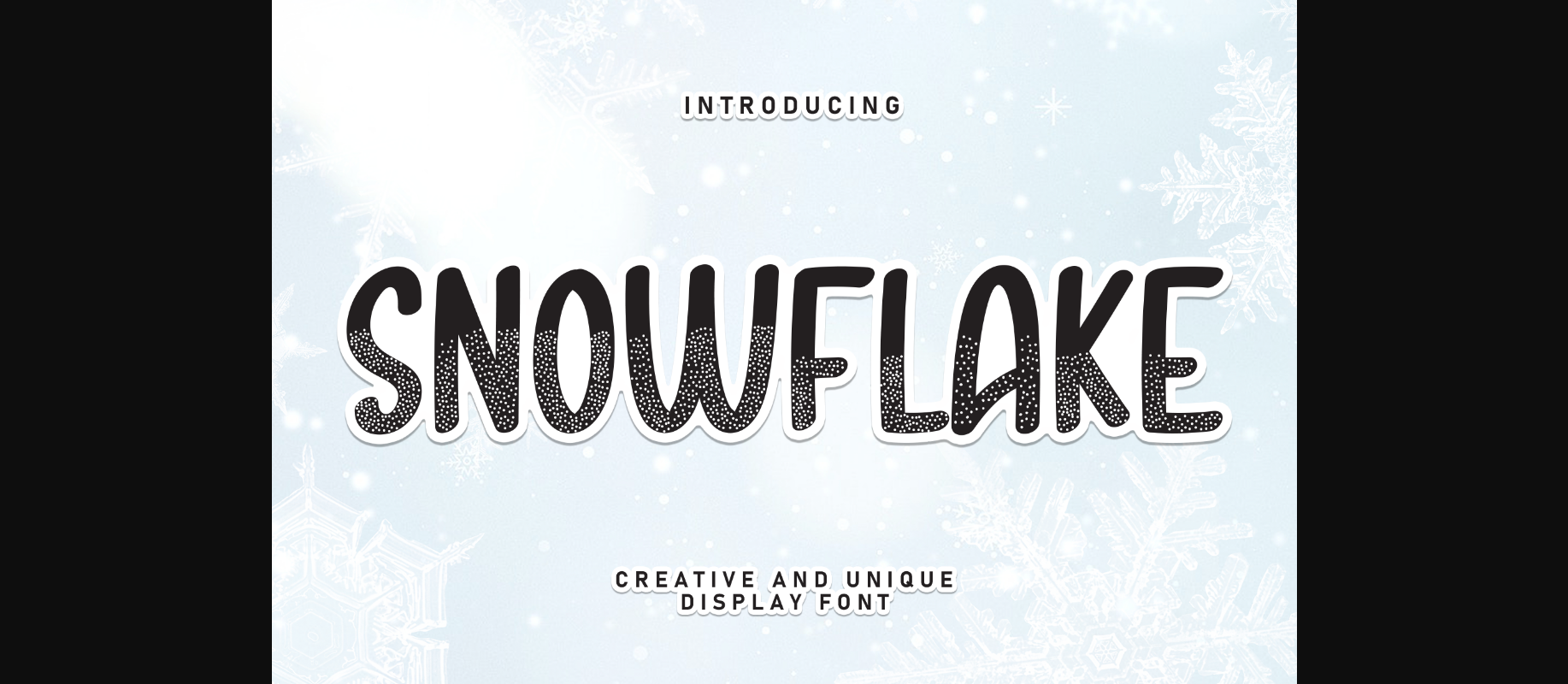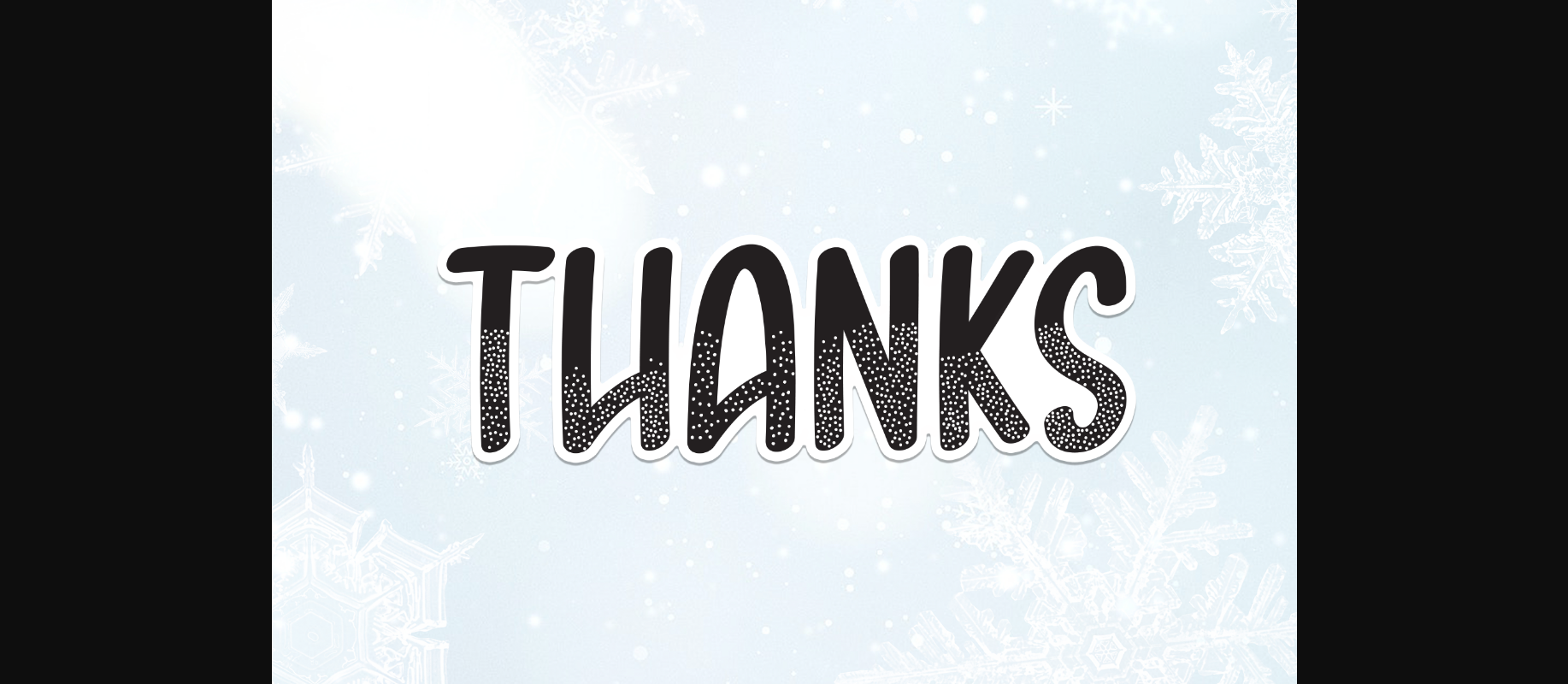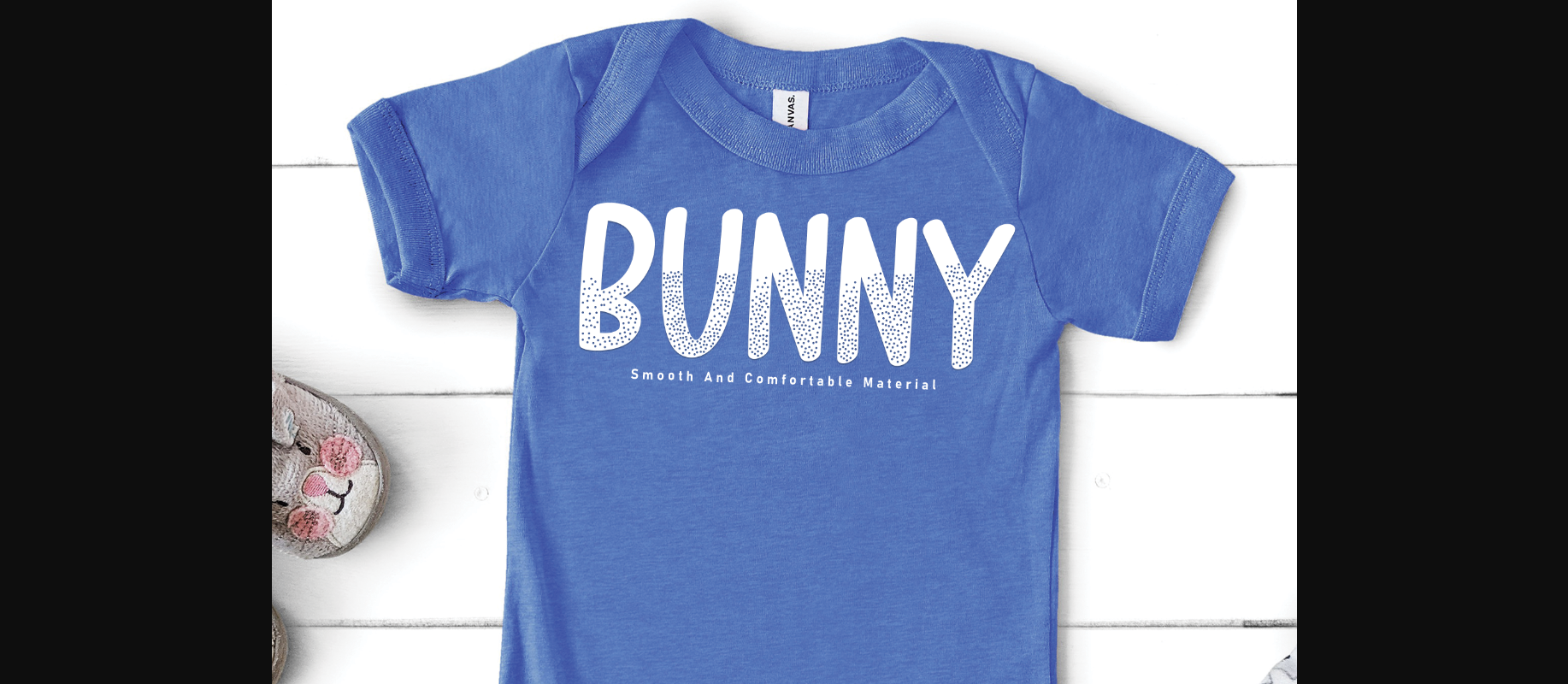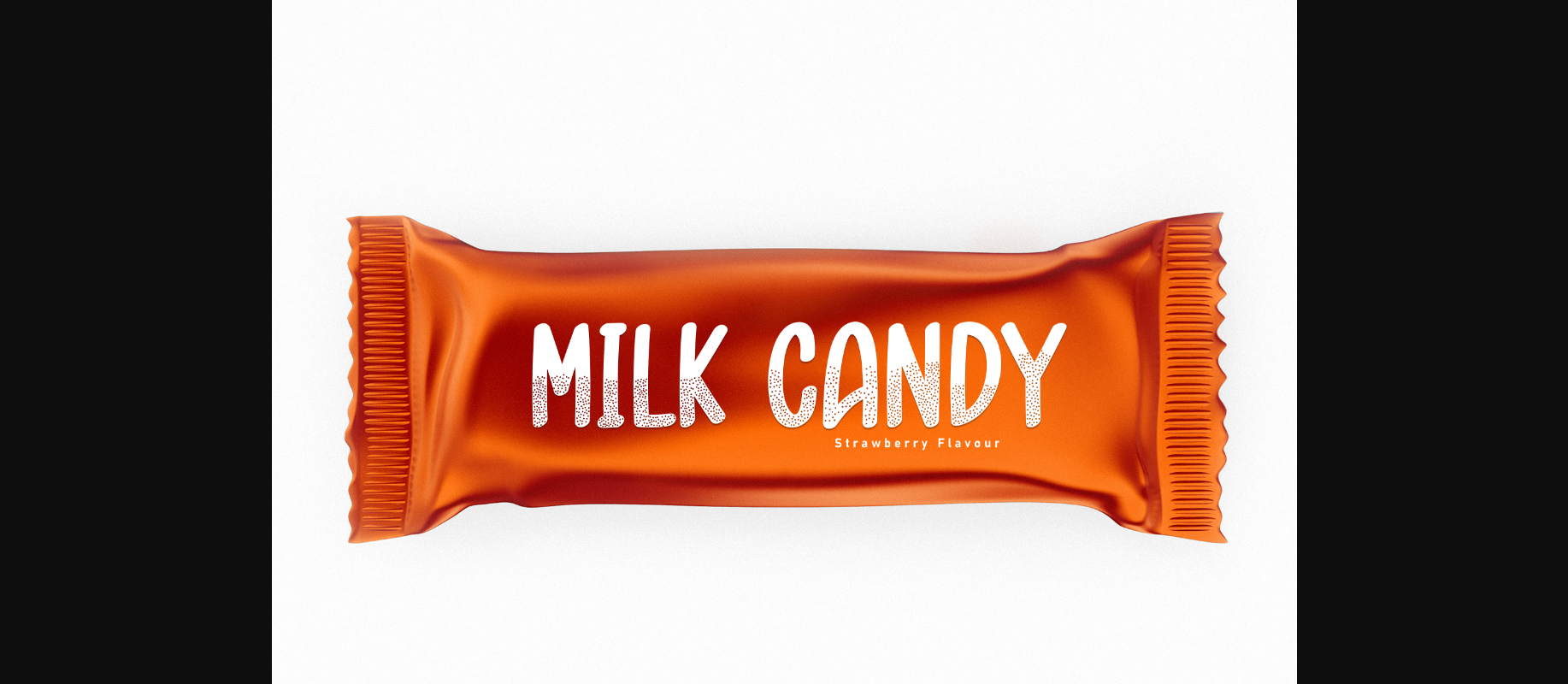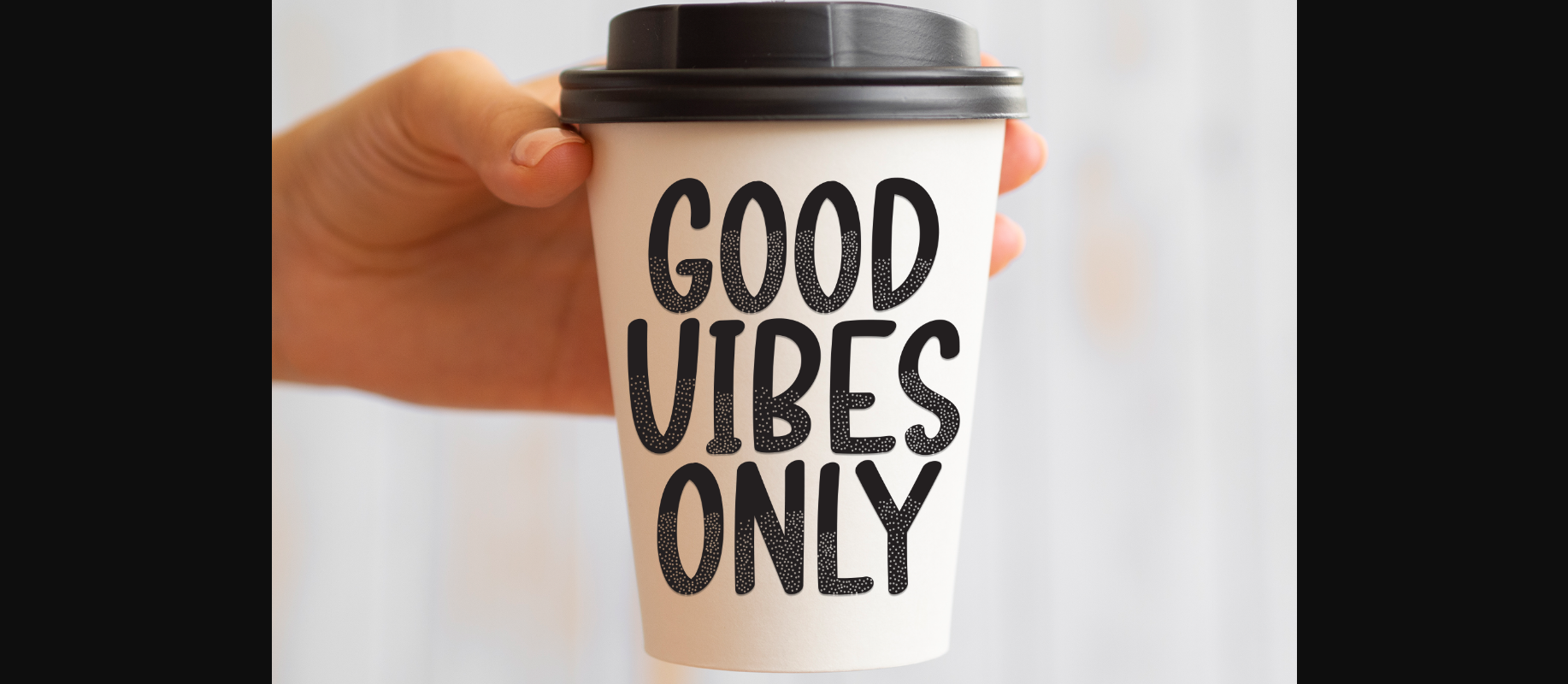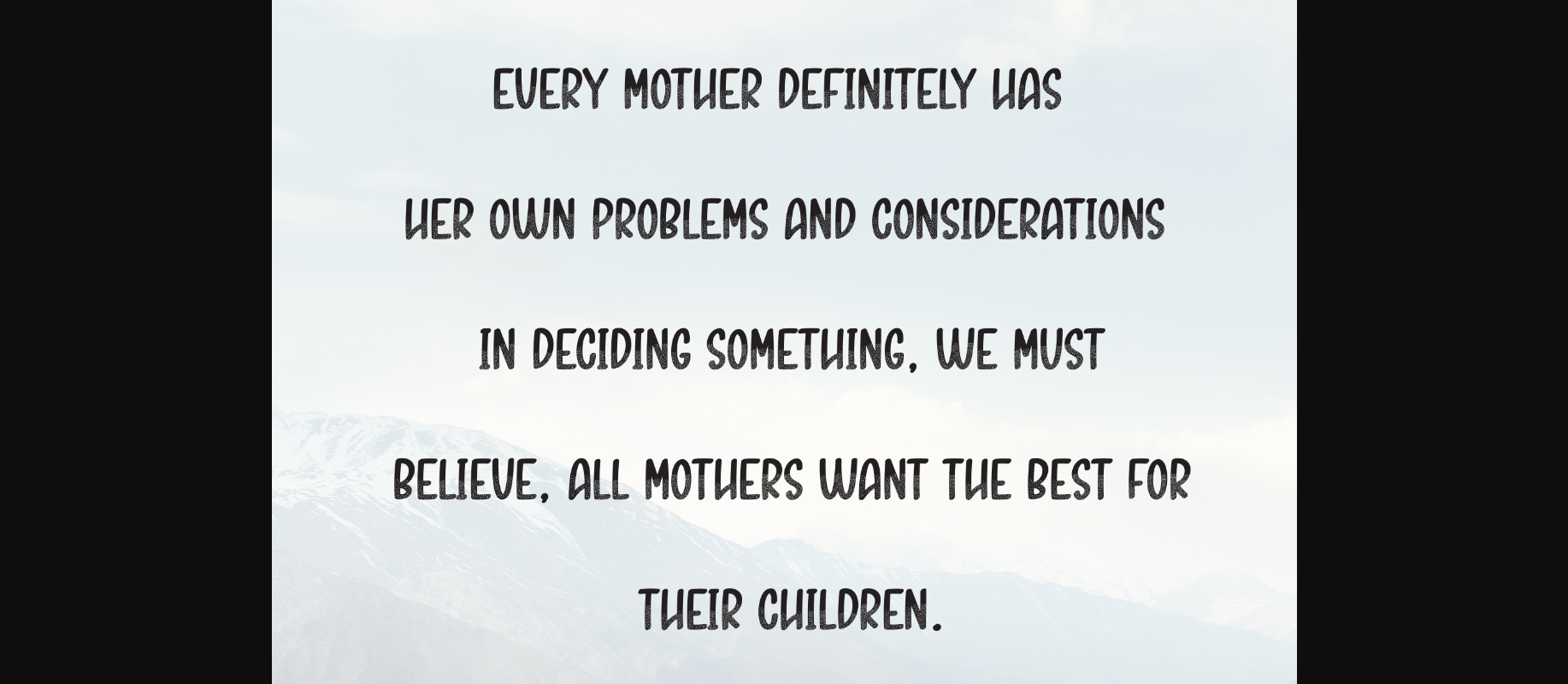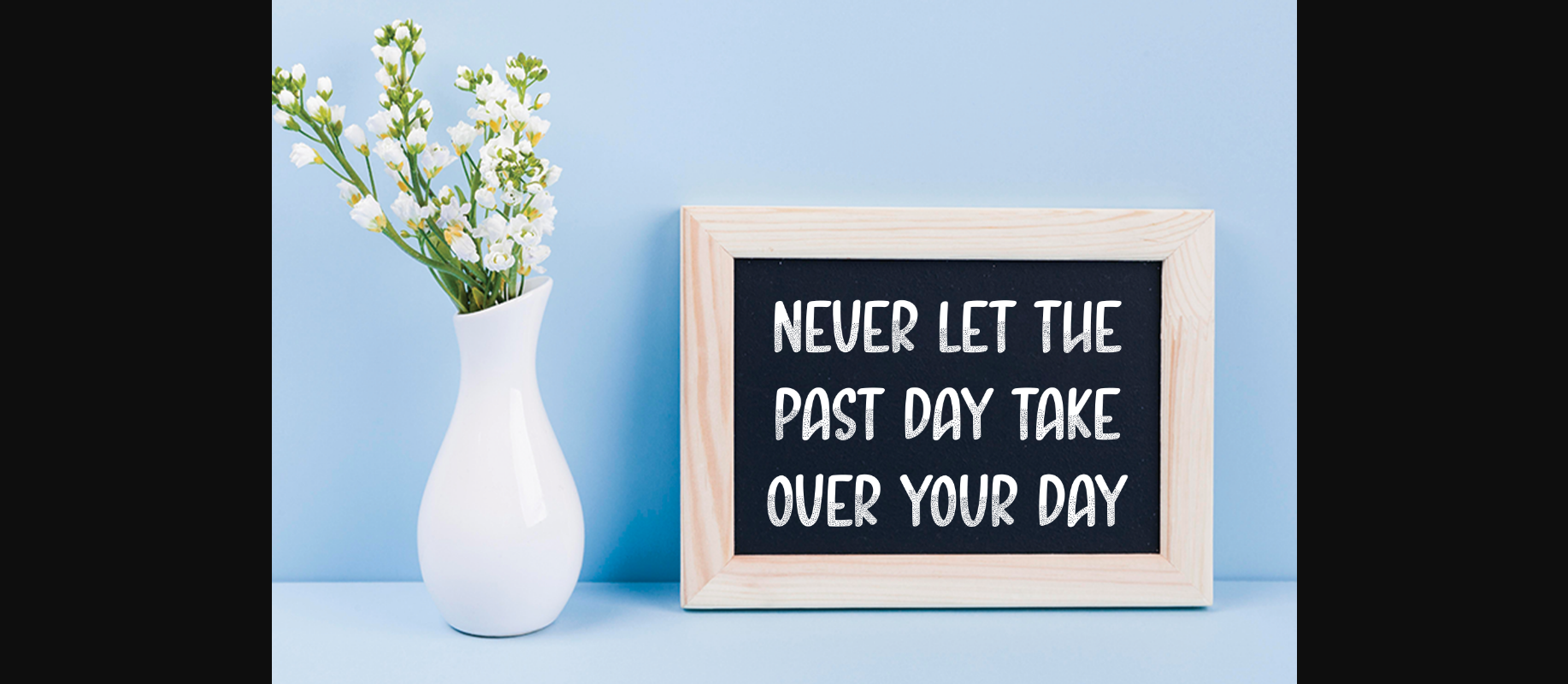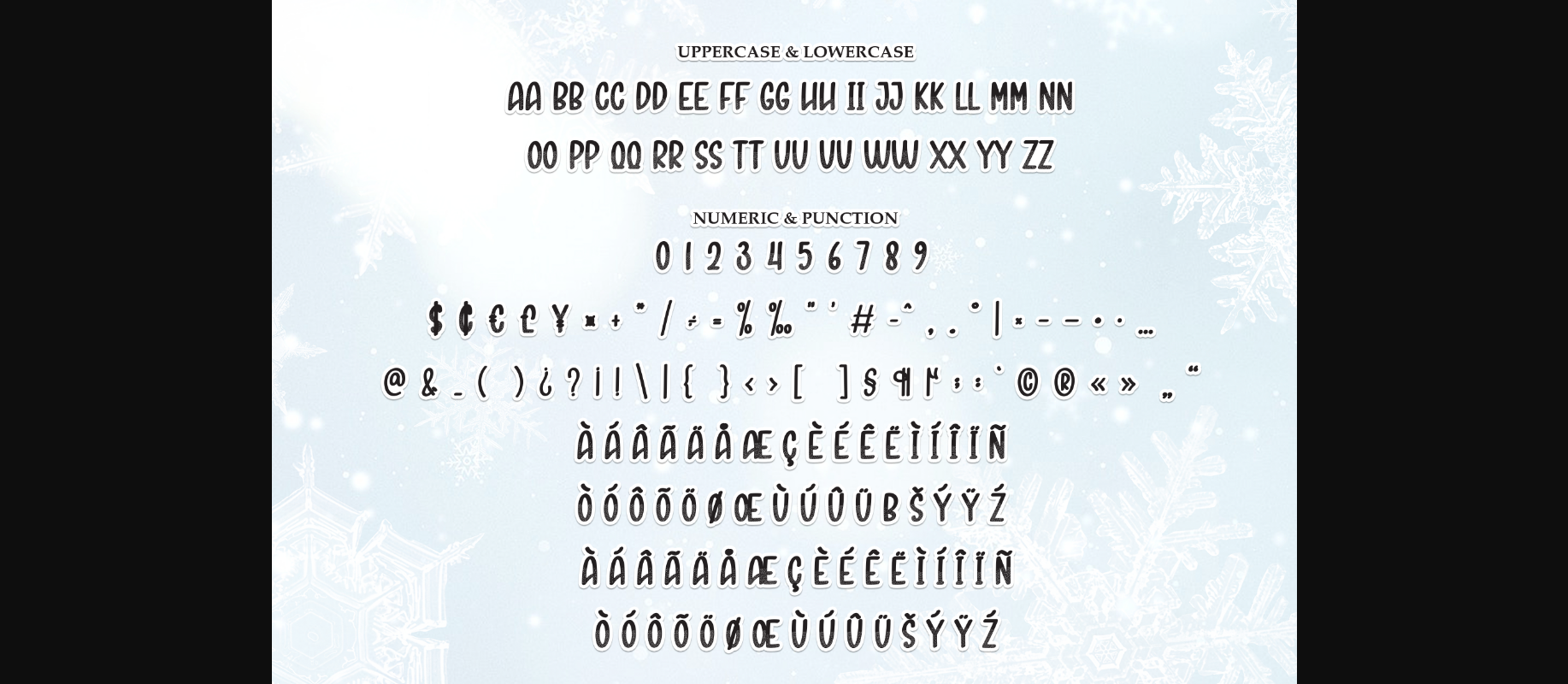
HomeDecorative FontsSnowflake Font Decorative Fonts Snowflake Font FacebookXPinterestWhatsApp 1 of 10 ... Snowflake Font Poster 2... Snowflake Font Poster 3... Snowflake Font Poster 4... Snowflake Font Poster 5... Snowflake Font Poster 6... Snowflake Font Poster 7... Snowflake Font Poster 8... Snowflake Font Poster 9... Snowflake Font Poster 10... About Snowflake Font Snowflake is a sweet and friendly decorative font. Cute and versatile, this font is ideal for writing wedding invitations, cards, or any other design that might need a fun touch! DOWNLOAD NOW People also explored Pretty Beauty Font Kreuzlingen Font Monogram Christmas Font Spooky Grave Font Hosir Font Windy Browny Font Cervus Font Lone Memory Font Munect Font 327 0 TagsSnowflake Font Previous articleChristmas Jumper 2023 FontNext articleChristmas Holiday Font LEAVE A REPLY Cancel reply Comment: Please enter your comment! Name:* Please enter your name here Email:* You have entered an incorrect email address! Please enter your email address here Website: Save my name, email, and website in this browser for the next time I comment. Personal Use Free Elevate Your Halloween Designs with 500 Free High-Quality PNG Clipart Files Personal Use Free Read more about this font Cataclysmo Personal Use Free Read more about this font Cheese Matcha Font Personal Use Free Read more about this font Wintersoul Personal Use Free Read more about this font BLOG Free vs Paid Fonts: Why Investing in Premium Fonts Is Worth It Free vs Paid Fonts: Why Premium Fonts Are Worth It in 2025 The debate of free vs paid fonts continues in the design world. While... Best Fonts for YouTube Videos: Make Your Thumbnails Stand Out How to Install and Use Fonts on Windows, macOS, and Web Projects 5 Fonts That Will Dominate Design Trends in 2026